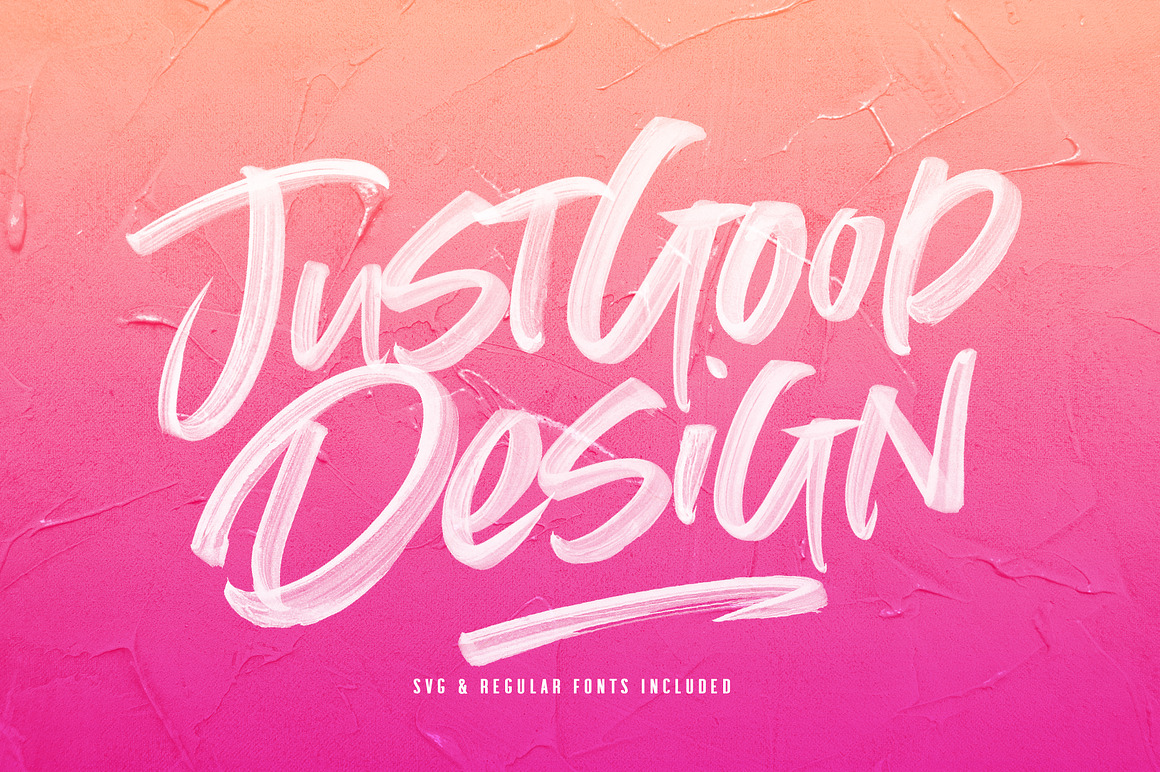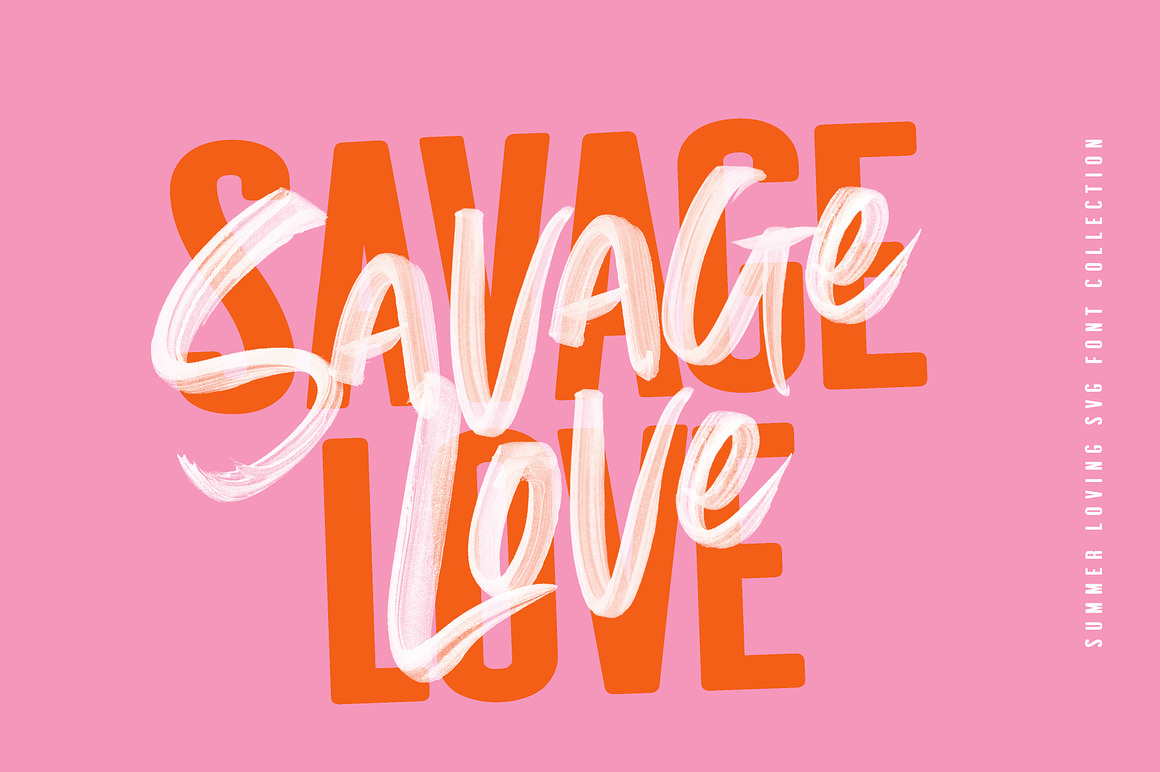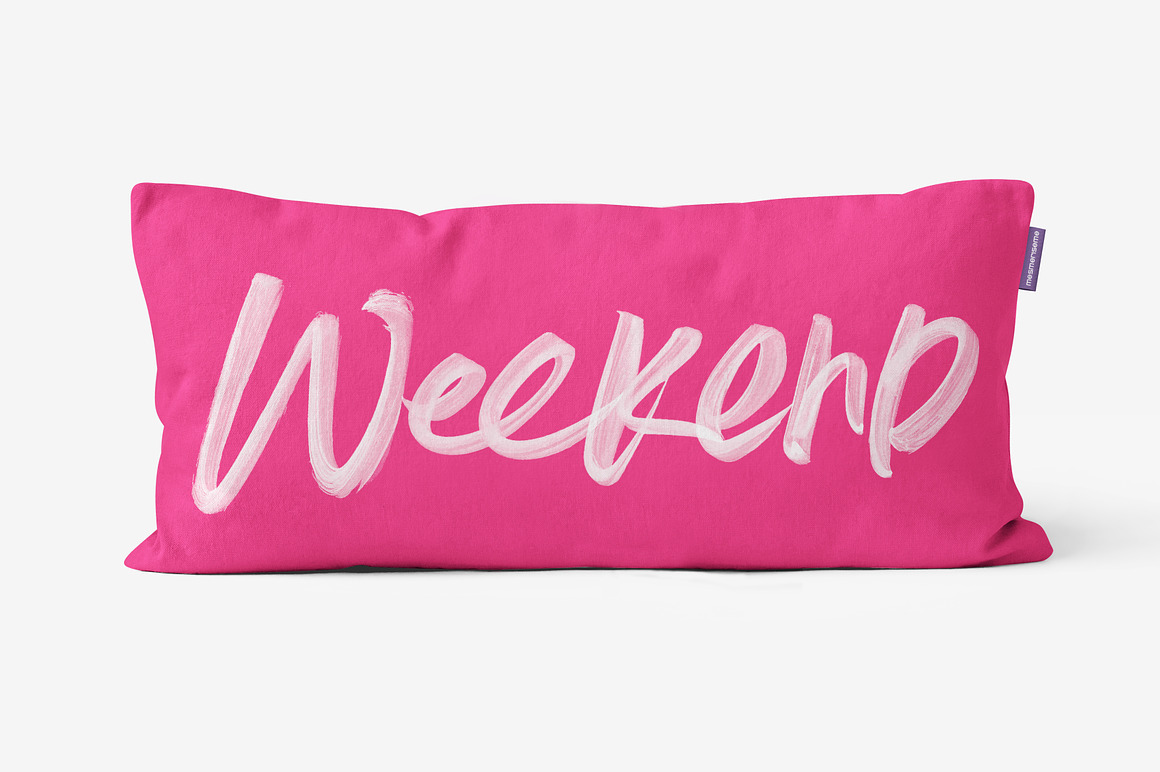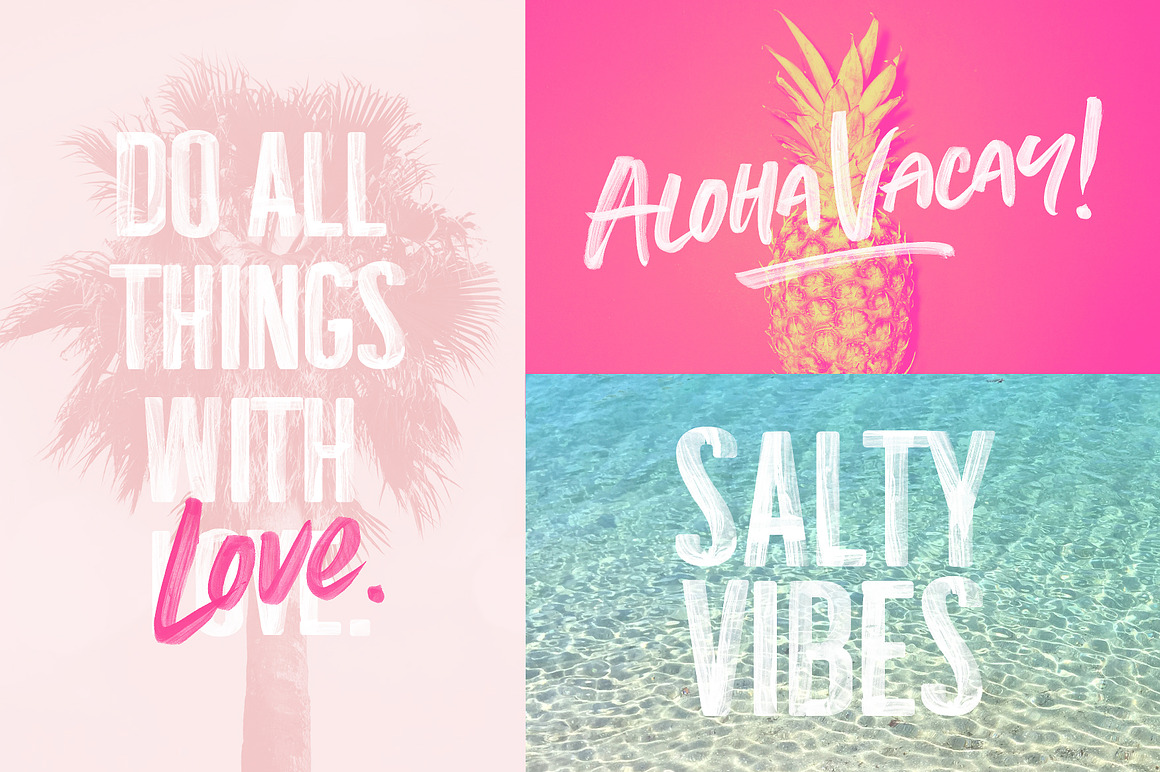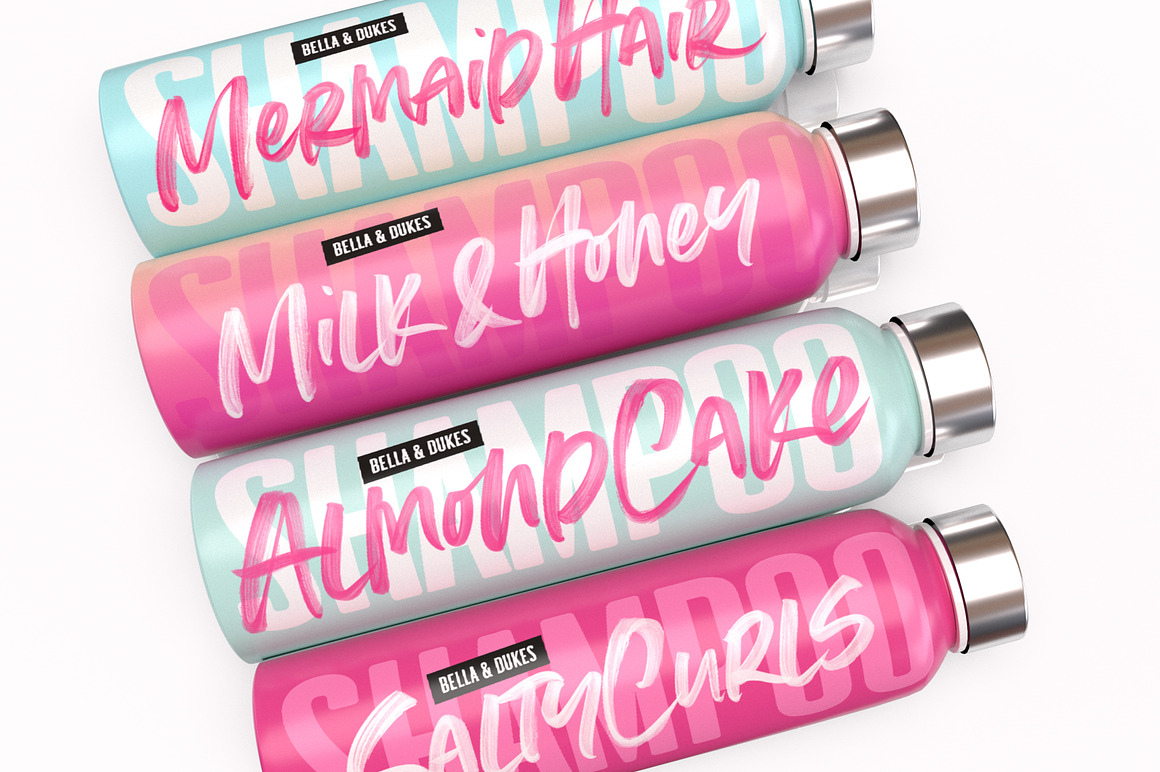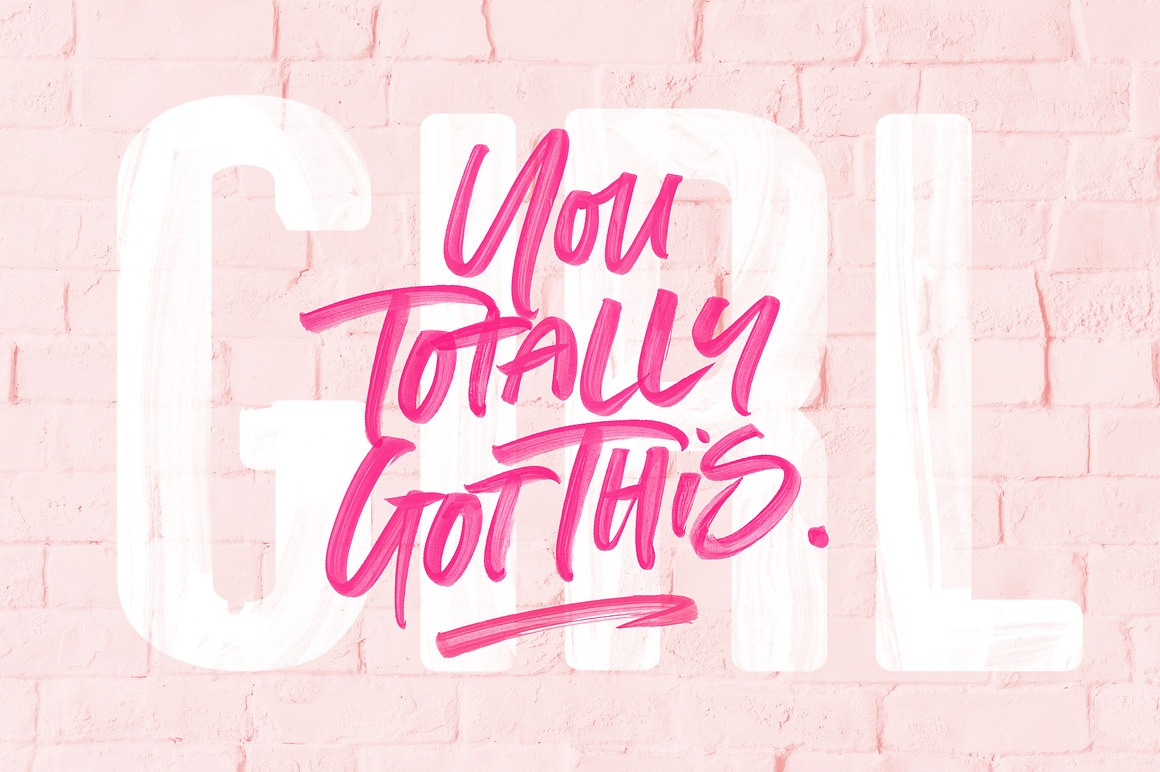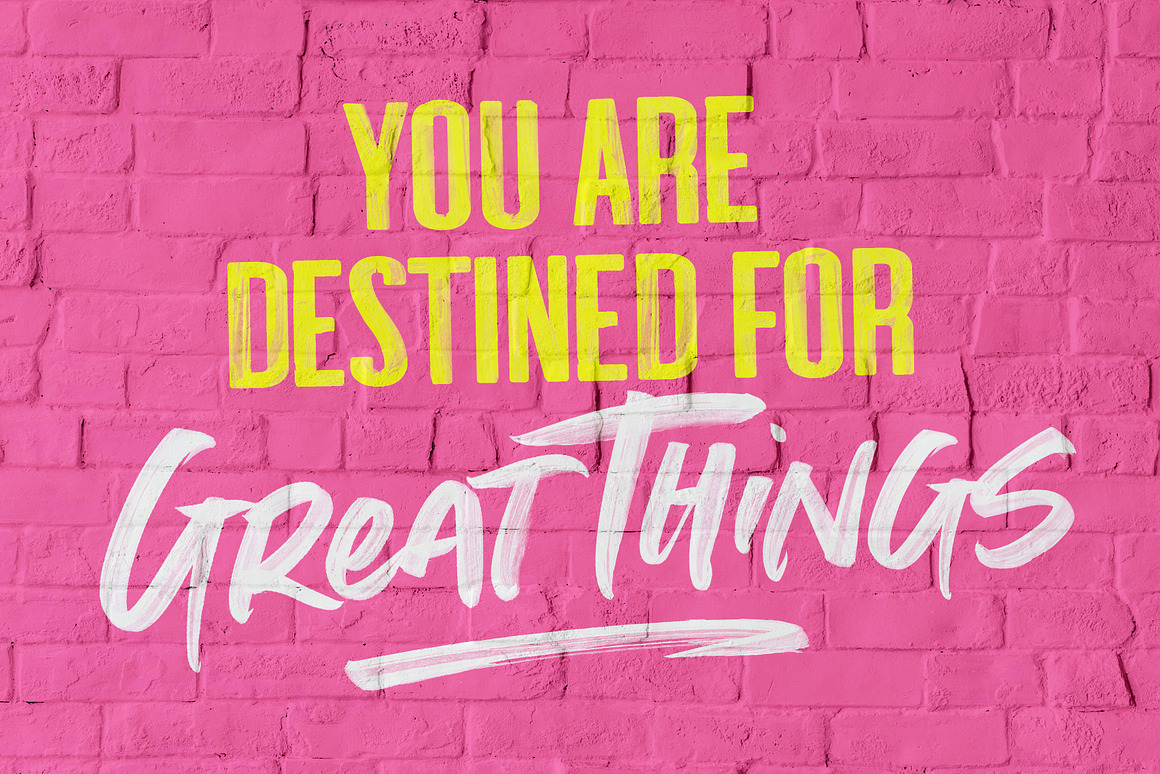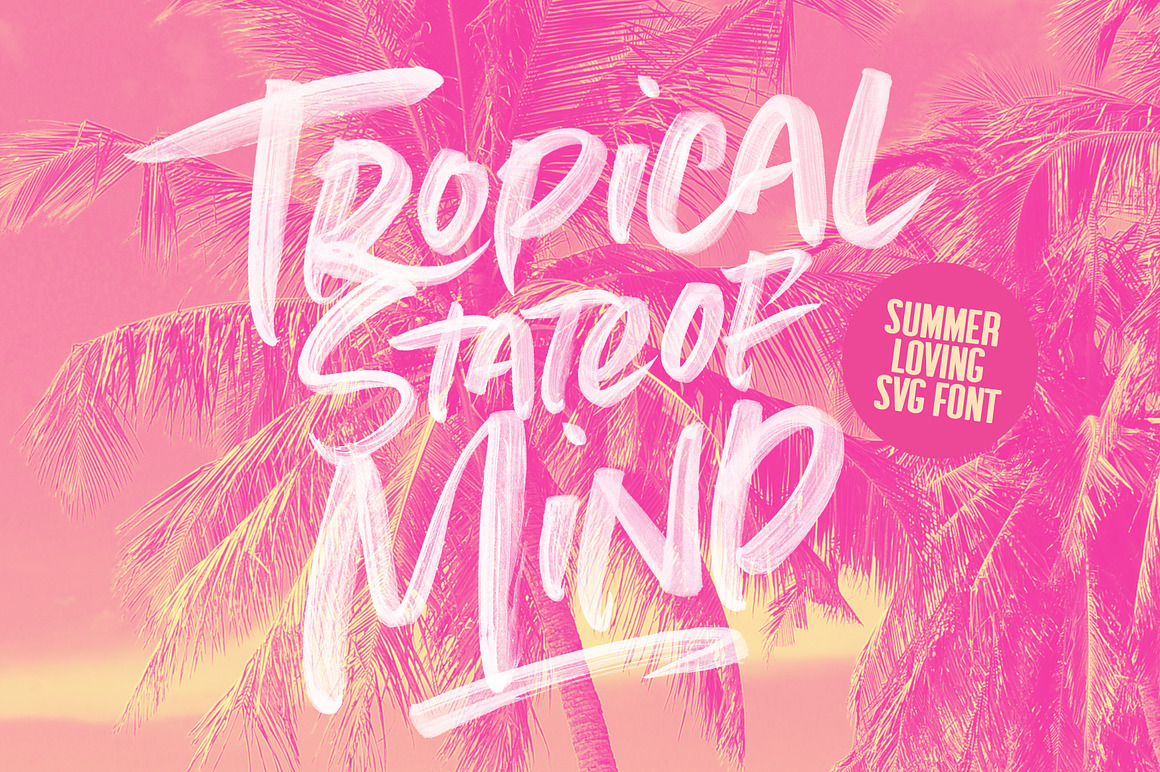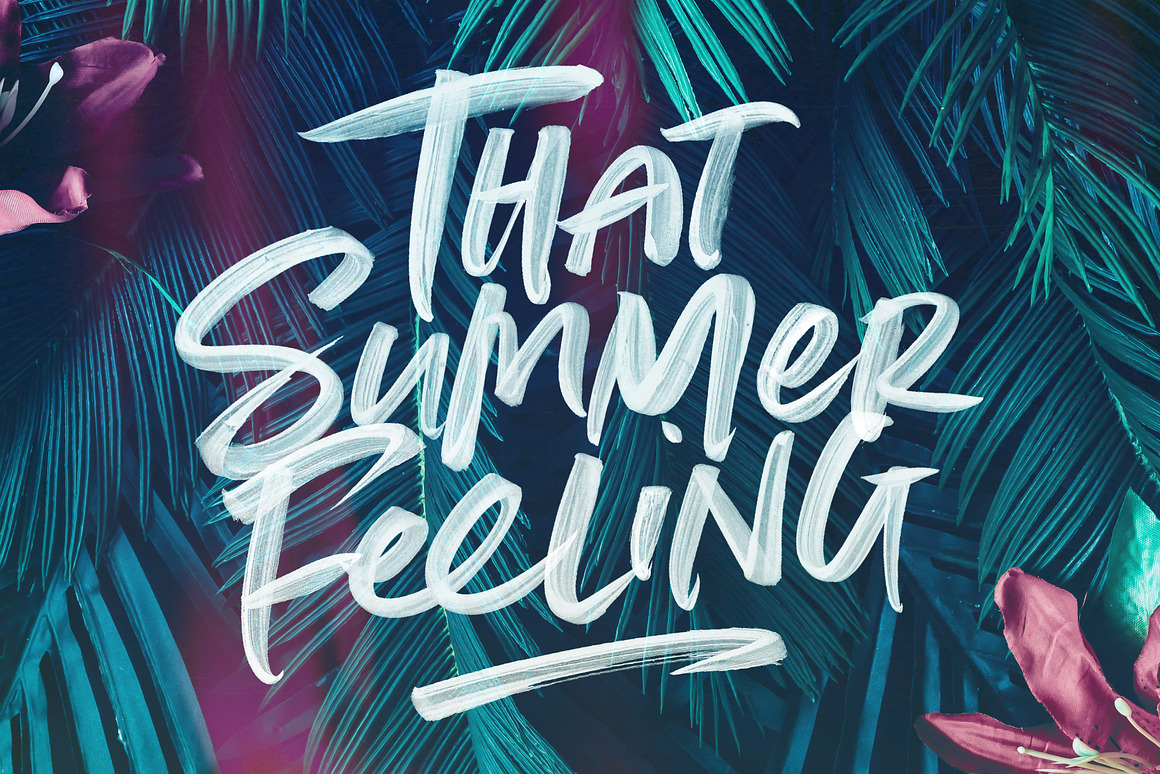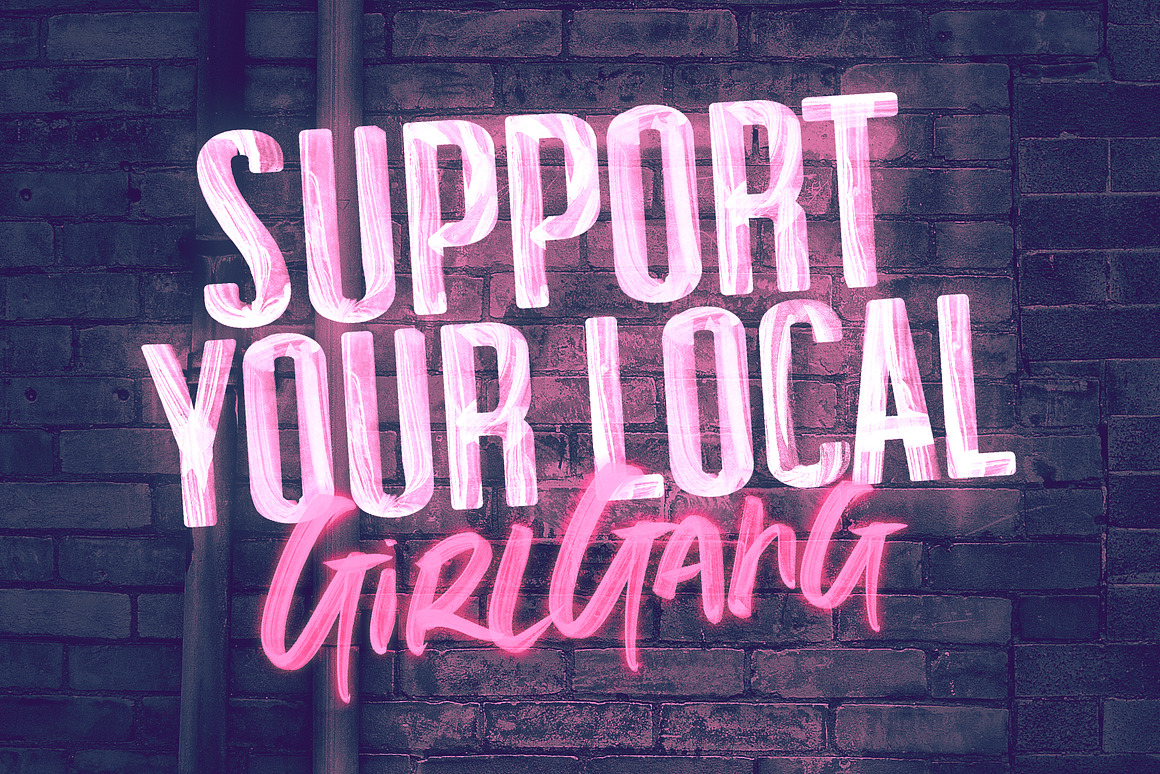
Summer Loving Font Collection
Summer Loving Font Collection is perfect for seasonal branding, invitations, greeting cards, social media graphics, poster designs, and lifestyle blogs. Its playful, breezy style adds a cheerful and vibrant touch to any project.
What makes Summer Loving Font Collection exciting is its variety of expressive, fun letterforms that capture the warmth and joy of summer. The collection’s dynamic designs bring energy and personality to every creative endeavor.
The Summer Loving Font Collection family includes Script, Sans, Bold, and Handwritten variations, offering designers flexibility to create diverse and visually captivating typographic compositions.